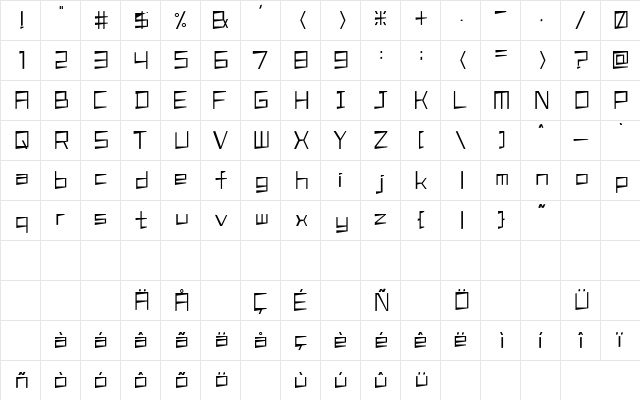
S A0kmh
| Style | A0kmh |
Design Context for S Typeface
S offers clean, dependable letterforms without strong stylistic allegiance, making it a practical choice for designers who need flexibility.